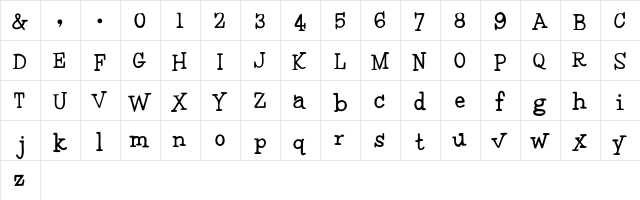
CSDCrazyCourier-Normal Regular
Design Context for CSDCrazyCourier-Normal Typeface
CSDCrazyCourier-Normal brings the precise, column-aligned rhythm of monospaced typography to designs that value technical clarity and systematic order.
Well-suited to data-driven dashboards, coding tutorials, and any design that wants to reference the world of programming.
Pro Tip: Use CSDCrazyCourier-Normal with slightly increased line-height for extended reading — fixed-width spacing can feel dense in longer passages without extra breathing room.